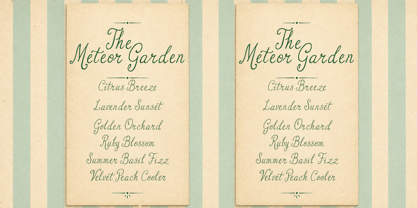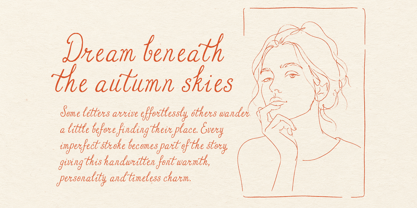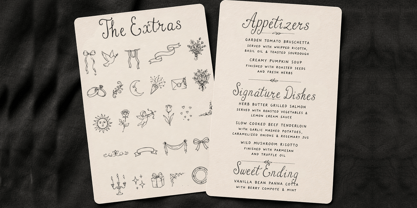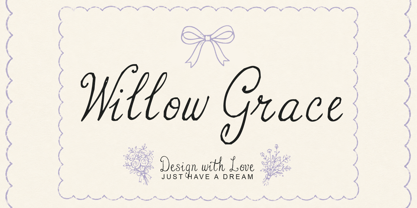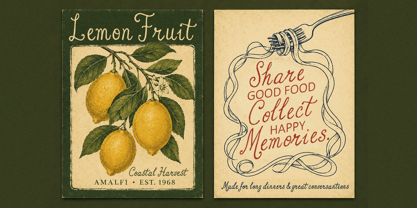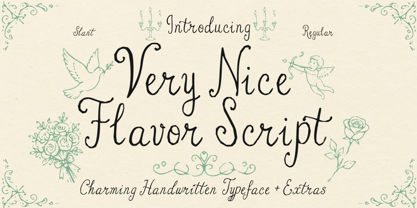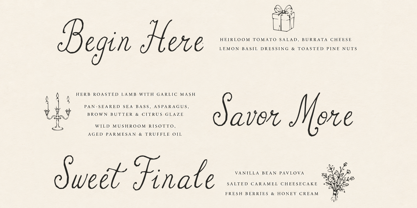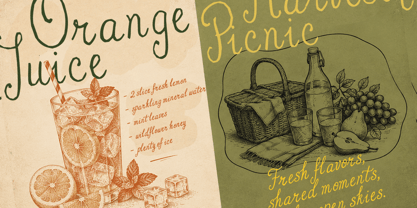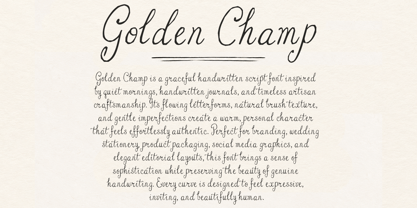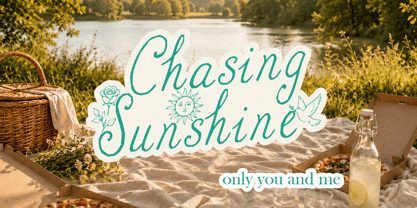
Very Nice Flavor
by Struggle Studio
The Very Nice Flavor Font Family was designed by Andri Kurniawan and published by Struggle Studio. Very Nice Flavor contains 3 styles and family package options. More about this family
Very Nice Flavor Script is a charming handwritten typeface inspired by timeless vintage elegance and classic romantic lettering. Featuring graceful curves, playful swashes, and naturally flowing strokes, this font brings a warm handcrafted personality to every design. Its slightly whimsical character makes it perfect for projects that seek a nostalgic yet sophisticated feel.
Designed with both Regular and Slant styles, Very Nice Flavor Script offers flexibility for creating beautiful typography with an authentic handwritten appearance. Every letter is carefully crafted to maintain readability while preserving the organic imperfections of real penmanship.
To make your creative work even more expressive, the font comes with a delightful collection of decorative extras inspired by vintage romance, including floral illustrations, birds, cherubs, ornamental flourishes, and other hand-drawn elements that perfectly complement the typeface.